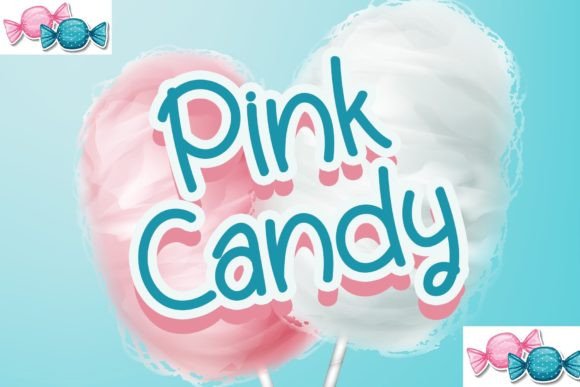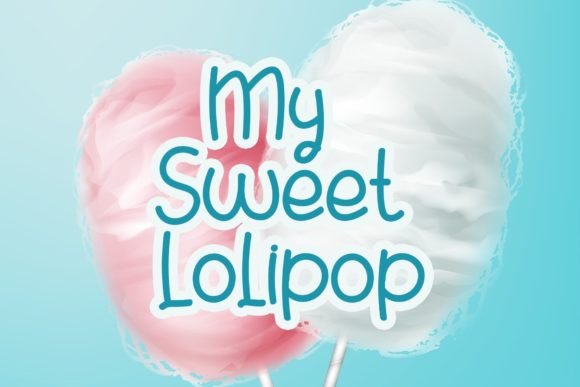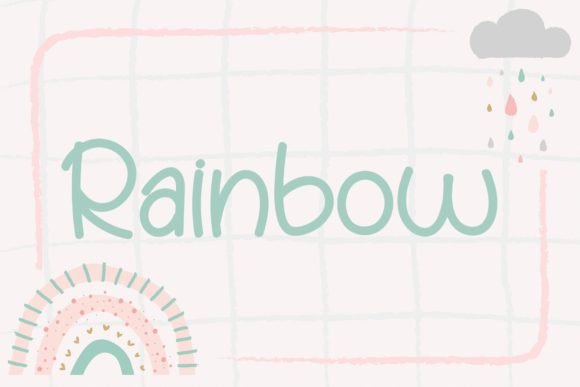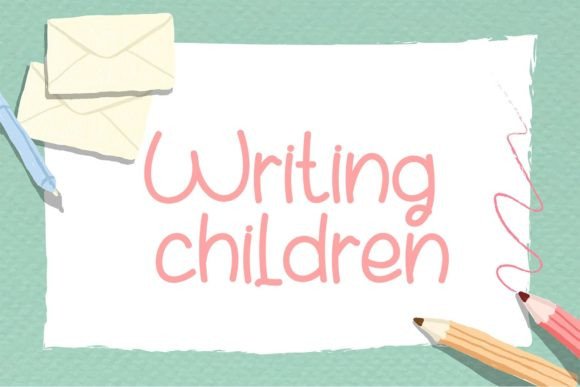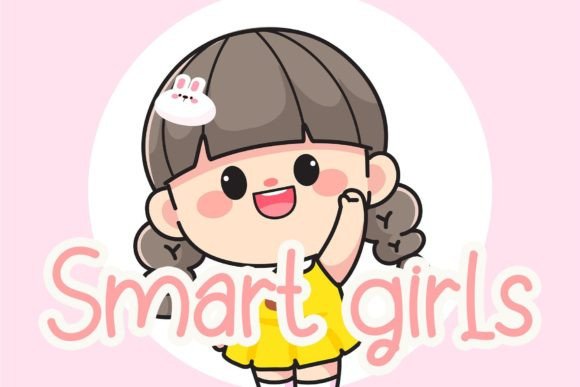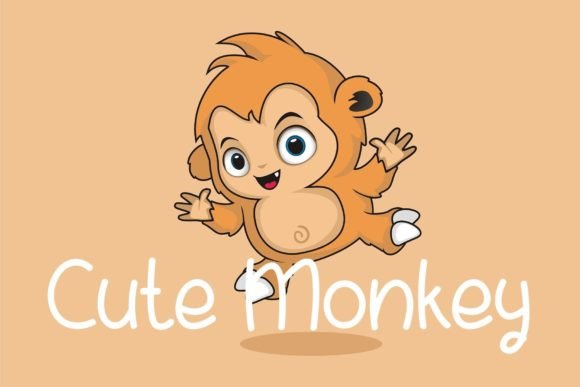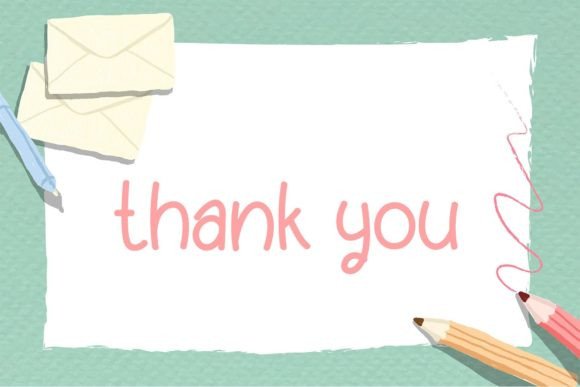
Pink Candy Font
About Pink Candy Font
“Pink Candy” is a playful and friendly handwritten font that adds a delightful touch to your design projects. With its fun and whimsical character, this font is perfect for turning any idea into a standout creation. Whether you’re working on greeting cards, posters, invitations, social media graphics, children’s books, or any other design, “Pink Candy” inspires creativity with its unique charm.
The font’s playful and friendly style creates a warm and inviting atmosphere. Its handwritten appearance adds a personal touch, making your text feel approachable and genuine. “Pink Candy” is designed to capture the essence of joy and positivity, making it an ideal choice for projects that aim to evoke a sense of happiness and fun.
One of the key features of “Pink Candy” is its ability to infuse your designs with a sense of playfulness and creativity. Its whimsical charm adds authenticity, making your designs visually appealing and endearing. The font’s versatility allows it to adapt to various themes and contexts, making it suitable for a wide range of applications.
By incorporating “Pink Candy” into your projects, you’re infusing them with a sense of joy and charm. Its fun and friendly handwritten style add a touch of sweetness, making your designs visually appealing and heartwarming. Whether you’re a graphic designer, a creative artist, or an individual working on personal projects, “Pink Candy” offers you a delightful font choice to spark your inspiration and create designs that radiate positivity and creativity.